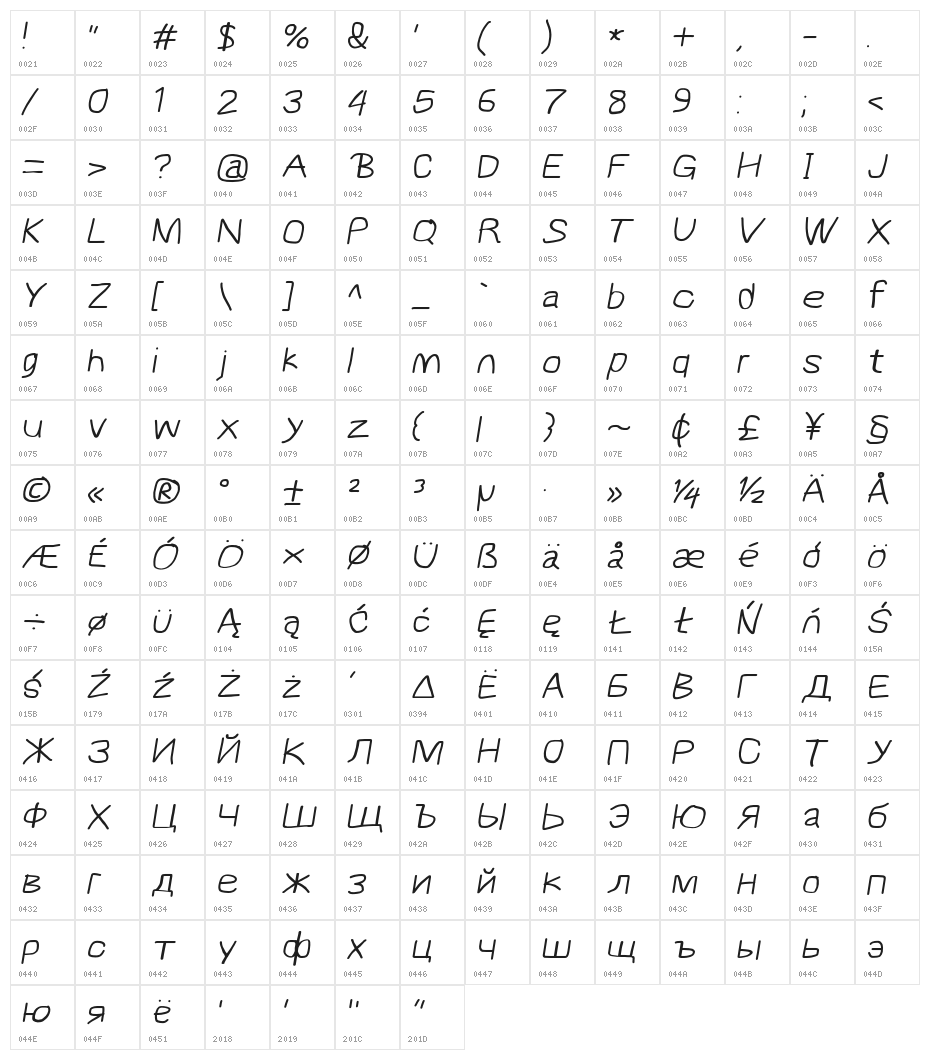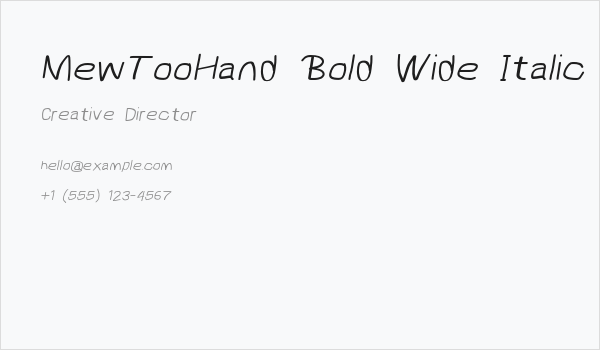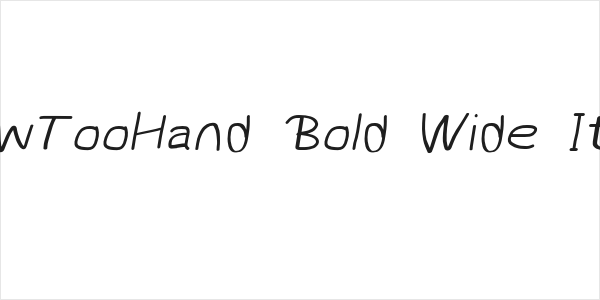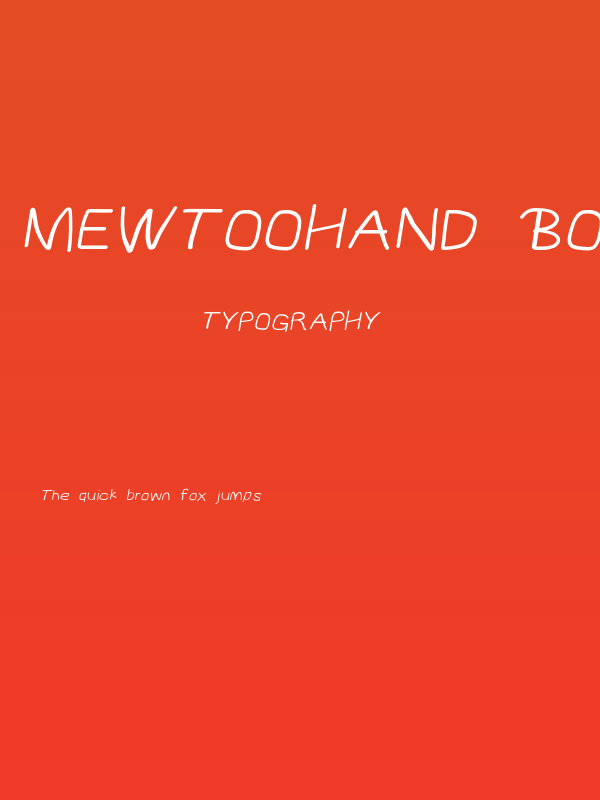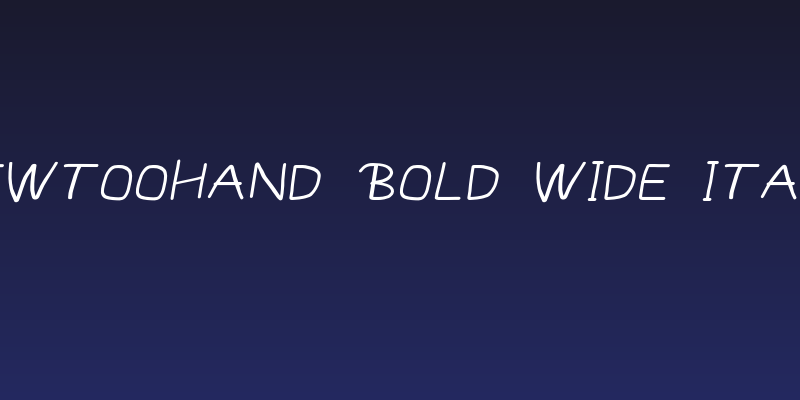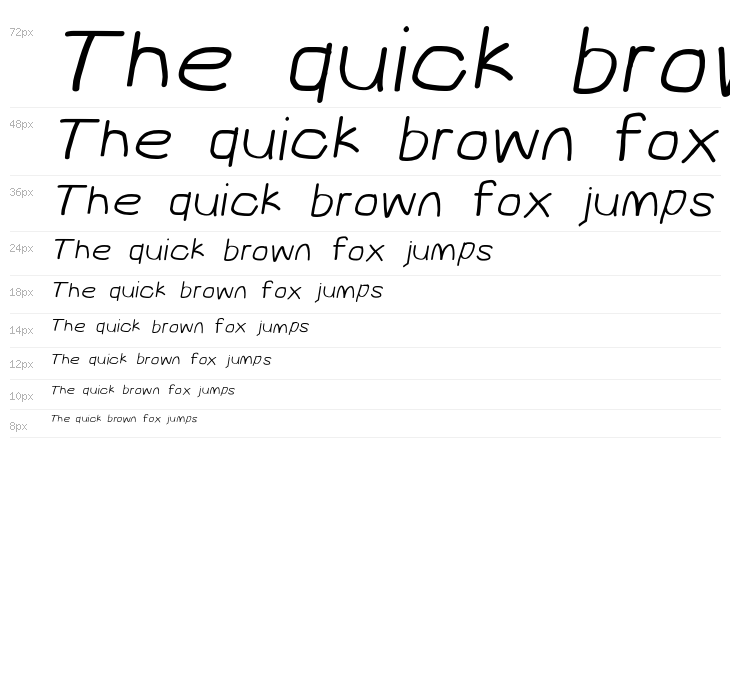
MewTooHand Bold Wide Italic Font
MewTooHand Bold Wide Italic Description
This font exhibits a playful and casual handwritten style, characterized by its bold and wide strokes. The letters are slightly italicized, giving them a dynamic and energetic appearance. The uppercase and lowercase letters maintain a consistent flow, with rounded edges and a smooth, continuous line quality. The numerals and special characters follow the same stylistic approach, ensuring uniformity across all glyphs. This font's design is approachable and friendly, making it suitable for projects that require a personal touch.
| Proposed Projects | Ideal for greeting cards, children's books, informal invitations, and playful branding projects. |